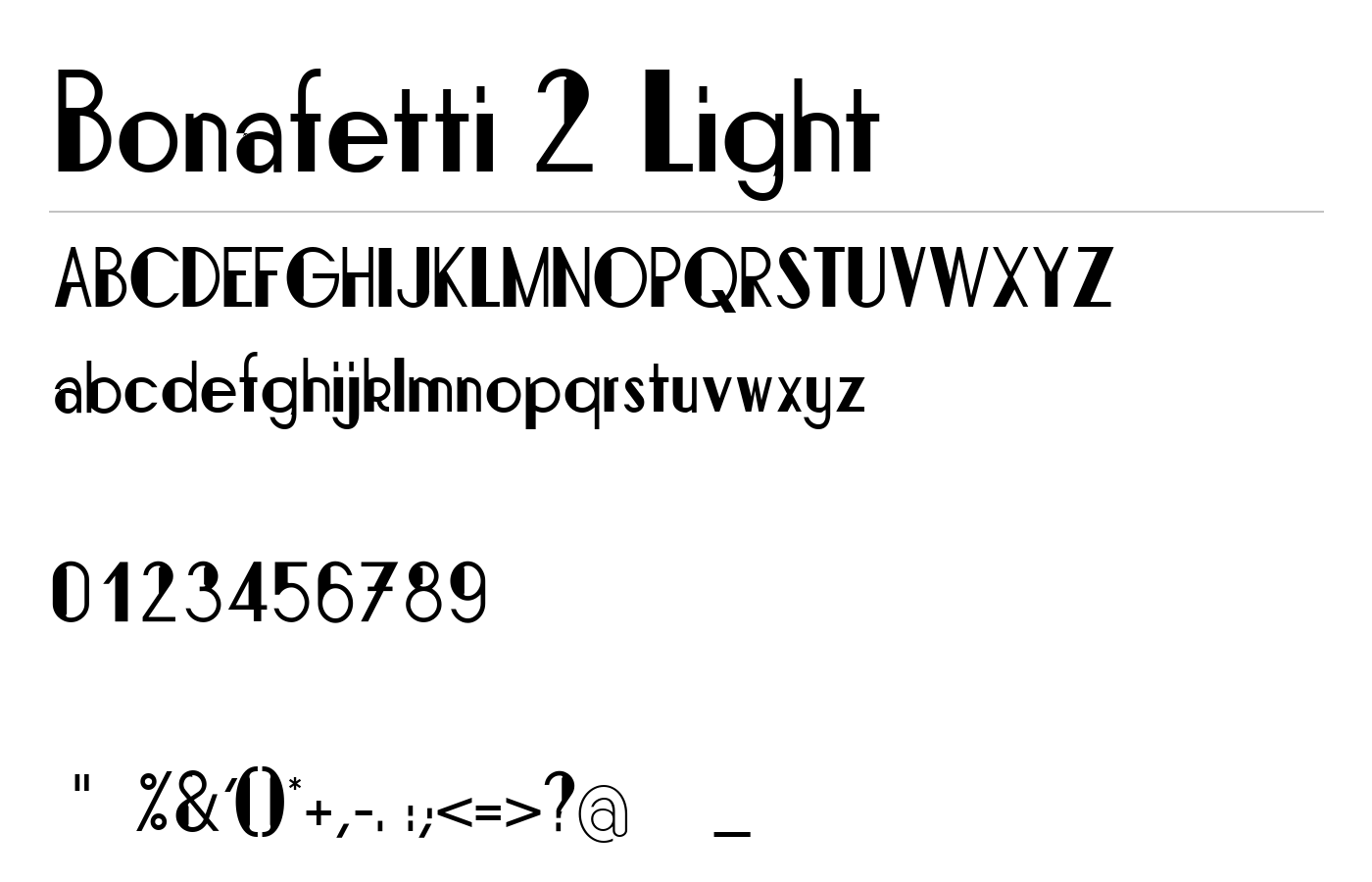
Bonafetti 2 Light is a stylish sans serif font featuring a tall, narrow structure with high contrast between thick and thin strokes, lending it a modern and sophisticated Art Deco feel. Its distinctive letterforms, such as the sharp terminals and geometric curves, make it ideal for elegant branding, headlines, and display use where a touch of vintage glamour is desired. This font works best in fashion, luxury, and editorial designs needing a sleek, memorable impact.
Bonafetti 2 Font
About Bonafetti 2 Font